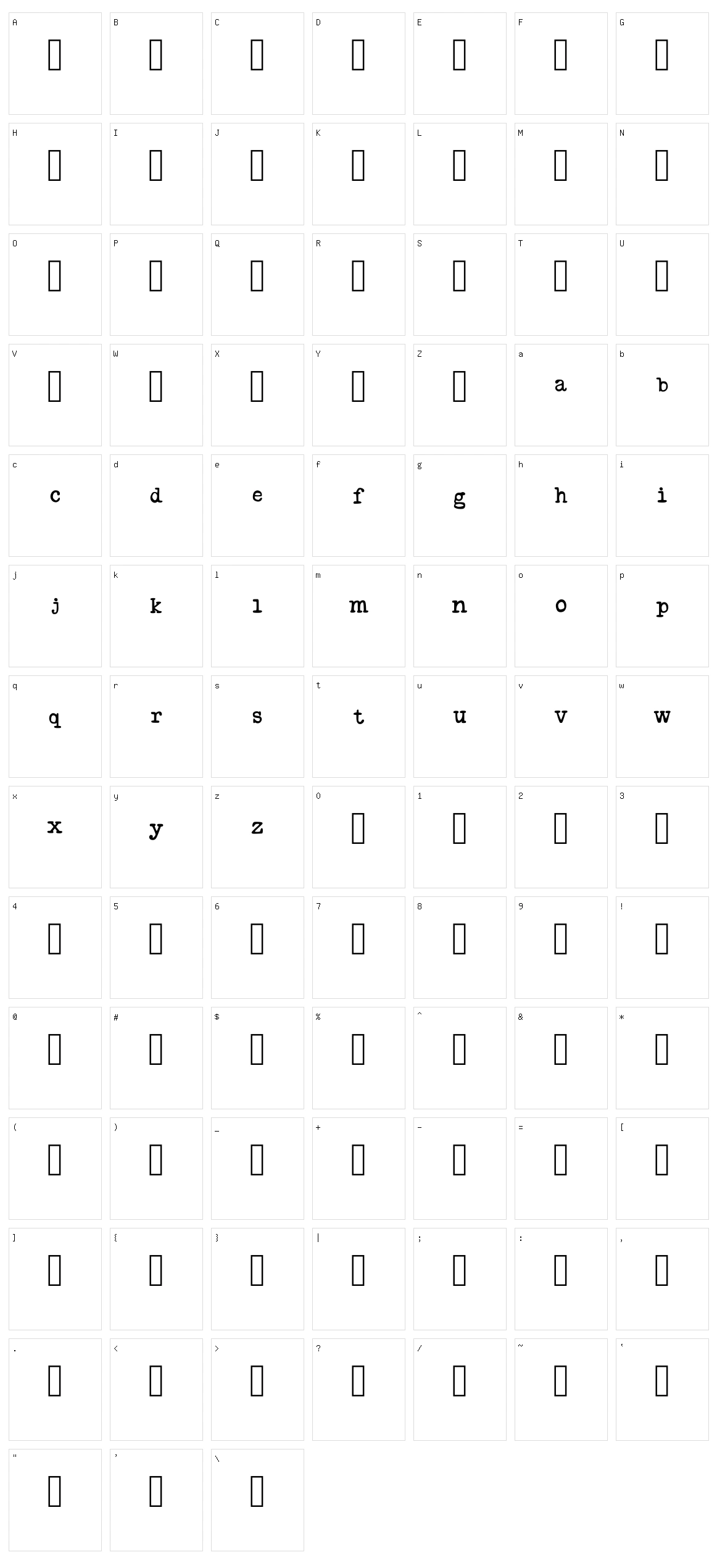
The free font Wanderlust Typewriter is carefully designed by Rainbow Graphicx, showcasing a thoughtful balance of creativity and usability and falls under the Typewriter font style. When you download the ZIP file, it contains only 4.47 KB of font files, making it lightweight and quick to download. Please review the license details below to understand permitted usage and distribution rights. If license information is not available, we recommend using this font for personal projects only or contacting the author directly for commercial usage permissions.